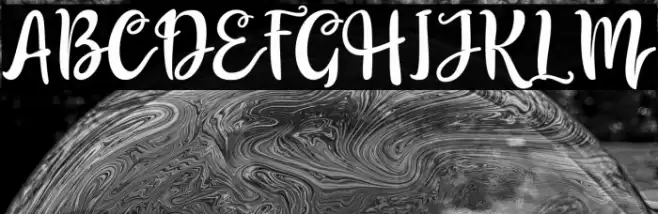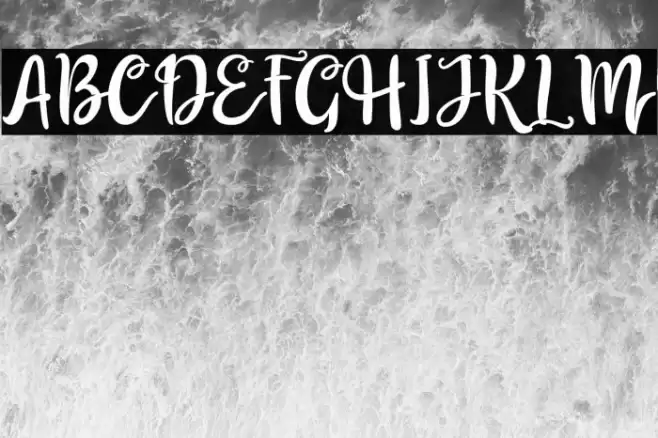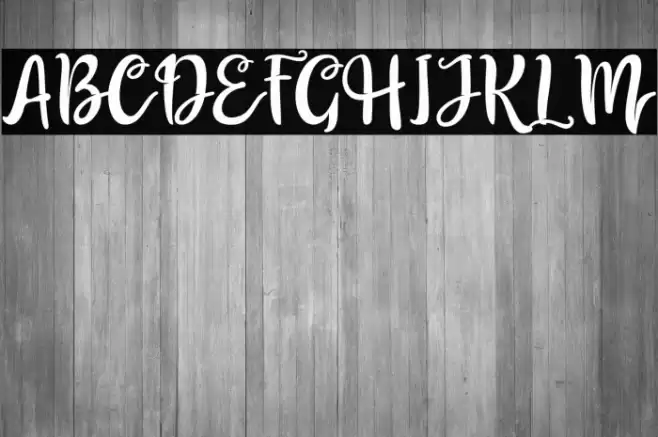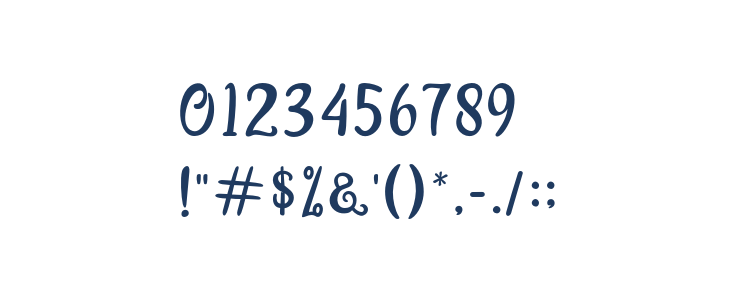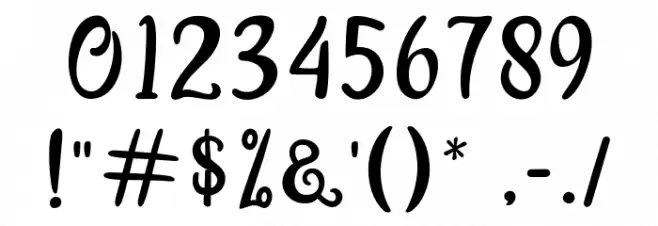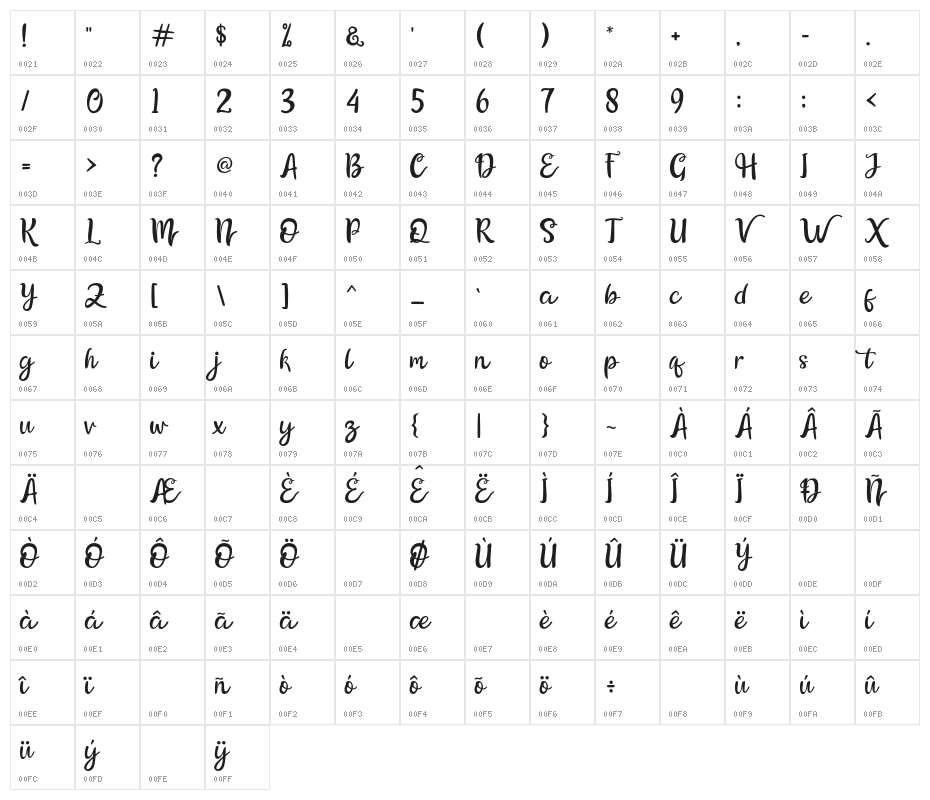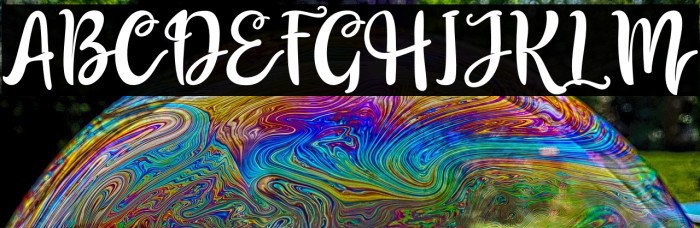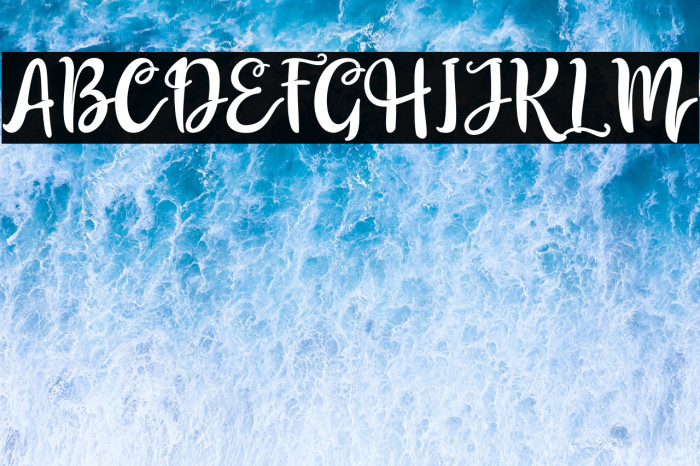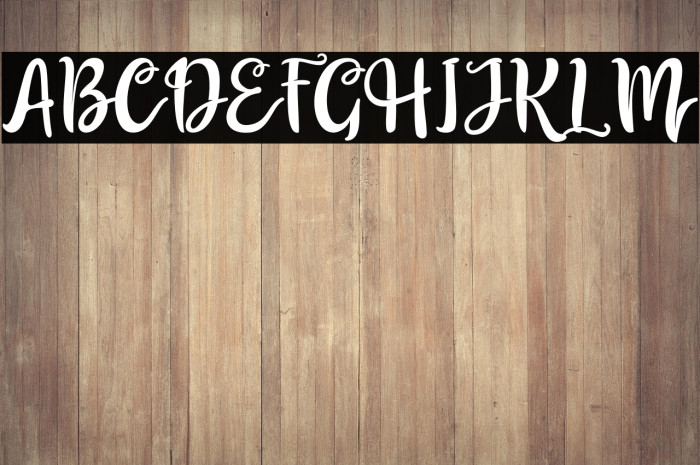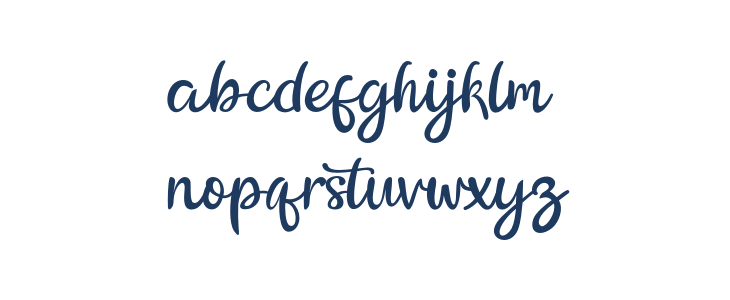
TheBillow Font
TheBillow Description
This font features a lively and flowing script style, characterized by its smooth, rounded strokes and playful curves. The uppercase letters are bold and slightly exaggerated, giving them a whimsical appearance, while the lowercase letters maintain a consistent rhythm with elegant loops and swashes. The numerals are distinct and easy to read, complementing the overall style. Special characters are creatively integrated, maintaining the font's cohesive look. This font exudes a sense of joy and creativity, making it suitable for projects that require a touch of personality and flair.
A lively and flowing script font with playful curves and elegant loops from Uncategorized fonts.
- Font: TheBillow
- Proposed Projects: Ideal for invitations, greeting cards, branding, and creative projects that require a personal touch.
- Use Case: Logos, Invitations, Greeting Cards